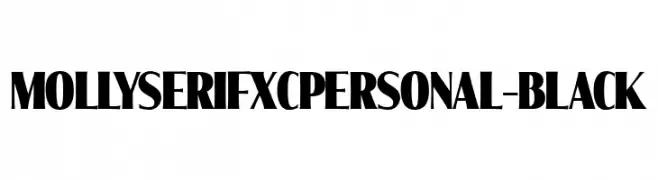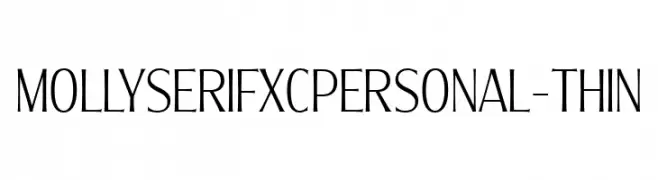
A bold, modern serif font with high contrast and angular serifs.
A bold, high-contrast serif font with sharp, angular serifs for dramatic impact.
A thin, elegant serif font with modern, angular serifs and consistent stroke width.
A modern serif font with thin, elongated strokes and elegant style.
A classic serif font with sharp, angular serifs and a balanced medium weight.
A bold, modern serif font with high contrast and dynamic character shapes.
A bold serif font with strong, angular serifs and a modern yet classic style.
A modern serif font with thin strokes and a refined, elegant appearance.
A bold serif font with angular serifs and high contrast, perfect for dramatic headlines.
A bold, high-contrast font with modern, elegant strokes and sharp angles.